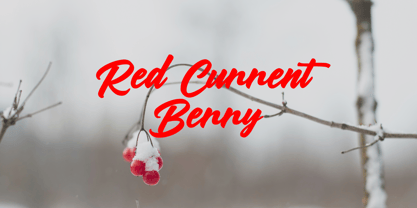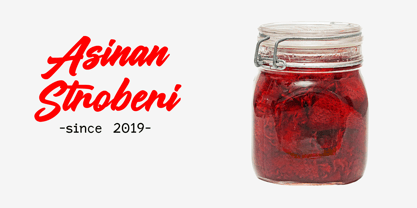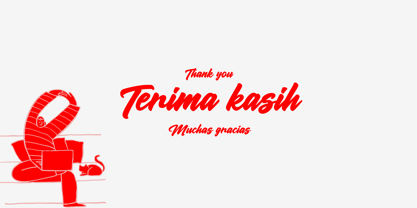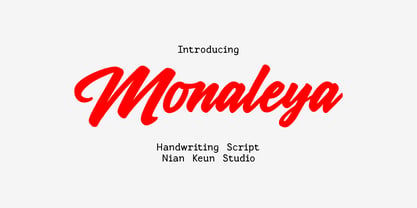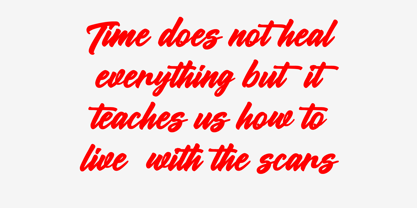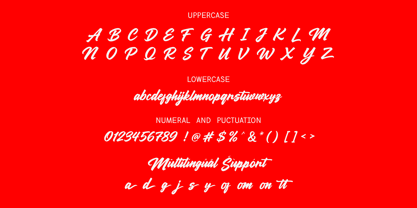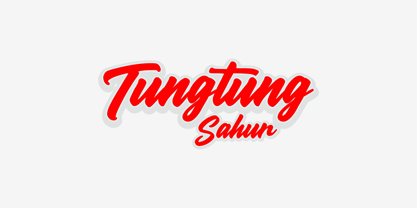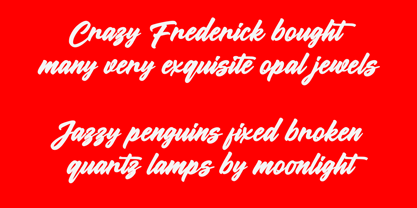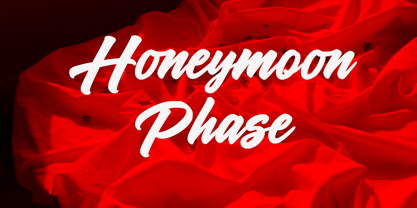
Monaleya
von Nian Keun Studio
Die Schriftfamilie Monaleya wurde von Mugi Raharjo entworfen und von Nian Keun Studio veröffentlicht. Monaleya enthält 1 Stile. Mehr über diese Familie
Monoleya is a bold and expressive handwritten script font that captures the beauty of natural brush lettering with confidence and charm. Designed with smooth flowing strokes, dynamic curves, and a handcrafted feel, Monoleya delivers a perfect balance between elegance and personality.
Its strong presence and fluid letterforms make it ideal for branding projects, logos, product packaging, social media graphics, wedding invitations, fashion campaigns, signatures, quotes, and modern advertising materials. Every character is carefully crafted to create a natural writing rhythm, giving your designs an authentic and premium handcrafted appearance.
Whether you're creating a sophisticated brand identity or a striking headline, Monoleya adds warmth, energy, and visual impact to every project.
Features
• Uppercase & Lowercase Characters
• Numerals & Punctuation
• Smooth Handwritten Brush Style
• Beautiful Ligatures
• Multilingual Support
Perfect For
• Logo Design
• Branding & Identity
• Product Packaging
• Social Media Content
• Wedding Stationery
• Photography Watermarks
• Fashion & Beauty Projects
• Inspirational Quotes
• Advertising & Marketing Materials
Designer: Mugi Raharjo
Foundry: Nian Keun Studio